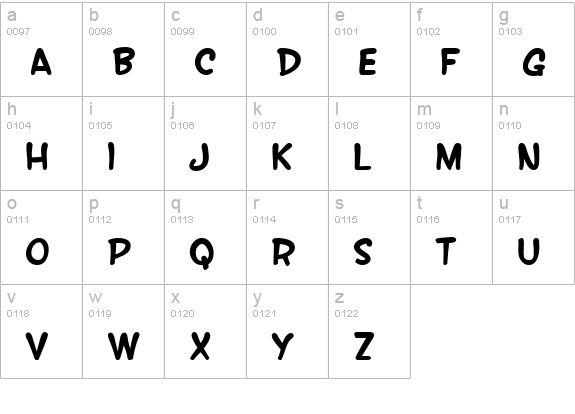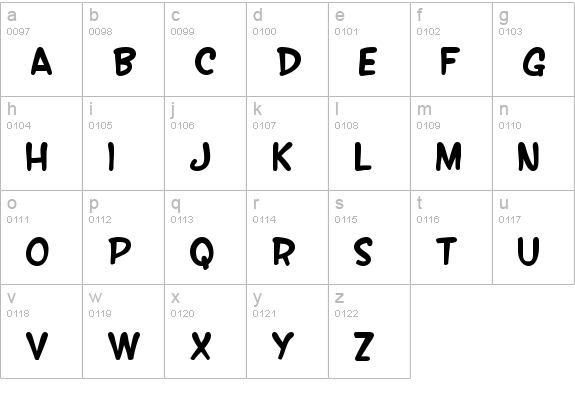
SF Wonder Comic Bold Font Details
SF Wonder Comic Bold is a strong, high-contrast variant in the SF typeface family \xE2\x80\x94 well suited to headlines, attention-grabbing titles, and strong calls-to-action.
Introducing SF Wonder Comic Bold, the captivating and energetic font that will inject a burst of excitement into your designs. With its bold and dynamic letterforms, this font exudes a sense of adventure and playfulness, making it perfect for comic books, graphic novels, and any project that demands a touch of boldness. SF Wonder Comic Bold is the ideal choice for those who want to make a statement with their typography. Its thick and powerful strokes command attention, while its quirky and exaggerated letter shapes add a unique and lively touch to any design. Whether you're creating eye-catching headlines, attention-grabbing posters, or vibrant comic book panels, this font will effortlessly bring your words to life. But what's even better is that SF Wonder Comic Bold is available for free! Yes, you read that right. You can freely download this incredible font at FontsMarket.com. Now, you can enjoy the benefits of using a high-quality font without breaking the bank. Let your creativity soar as you explore the possibilities that SF Wonder Comic Bold offers, knowing that it won't cost you a penny. Not only does SF Wonder Comic Bold deliver in terms of aesthetics, but it also ensures legibility and readability, even at smaller sizes. Each letter has been carefully crafted to maintain clarity, allowing your audience to easily consume your message without any barriers. Whether it's on screen or in print, SF Wonder Comic Bold guarantees a smooth reading experience. So, why wait? Download SF Wonder Comic Bold today from FontsMarket.com and unleash your creativity. Whether you're a professional designer, a comic book enthusiast, or simply someone who appreciates high-quality fonts, this is your chance to elevate your designs to new heights. With SF Wonder Comic Bold, the possibilities are endless, and the best part is, it won't cost you a dime. Get ready to make a bold statement and captivate your audience with this remarkable font.